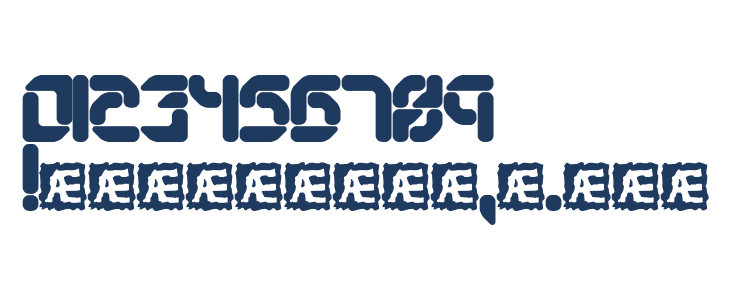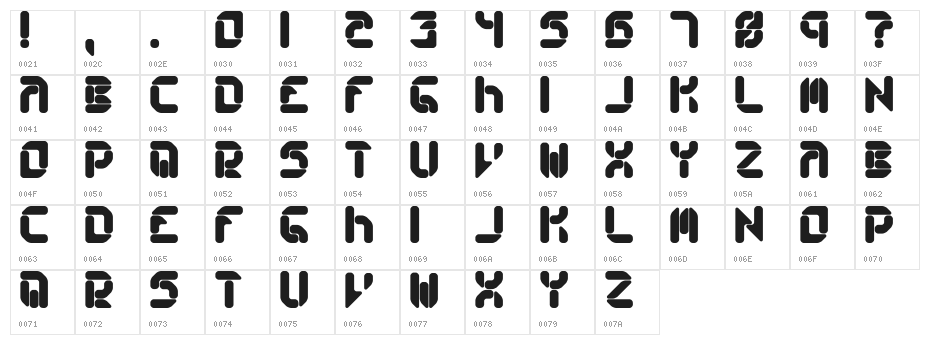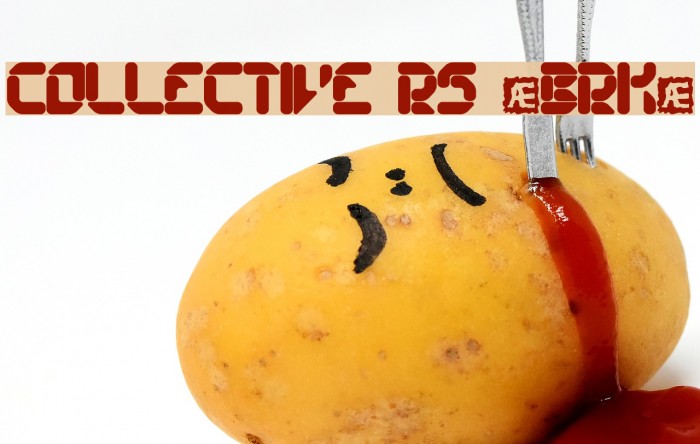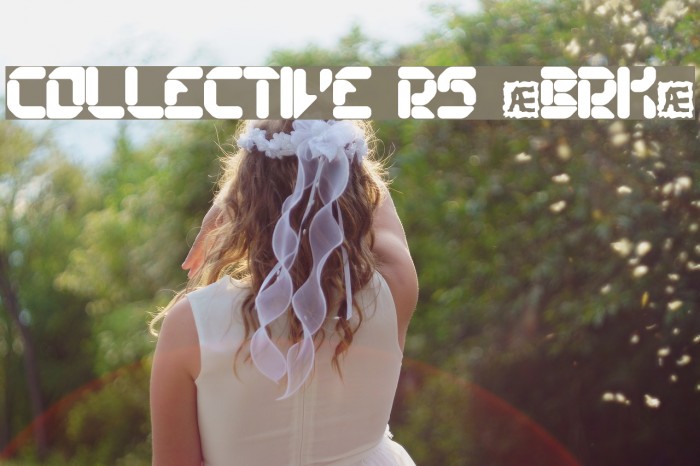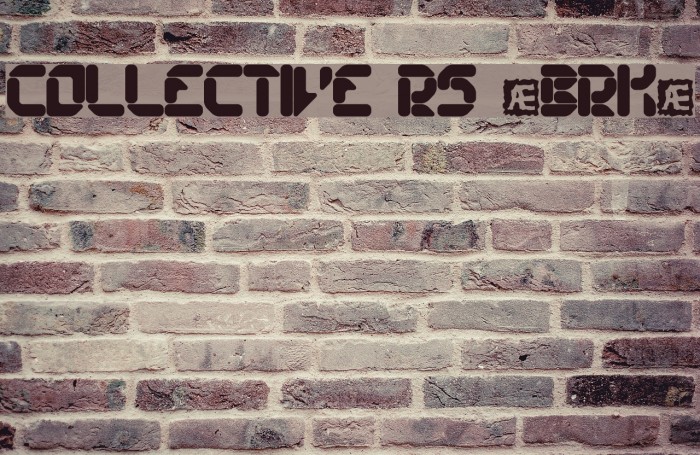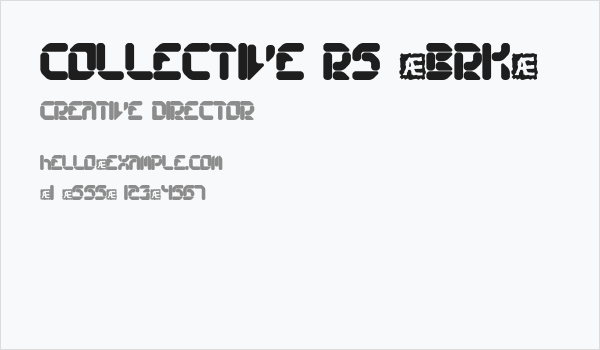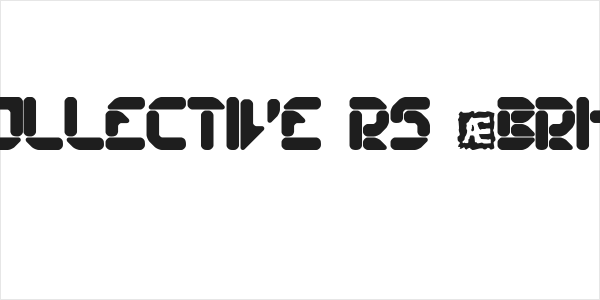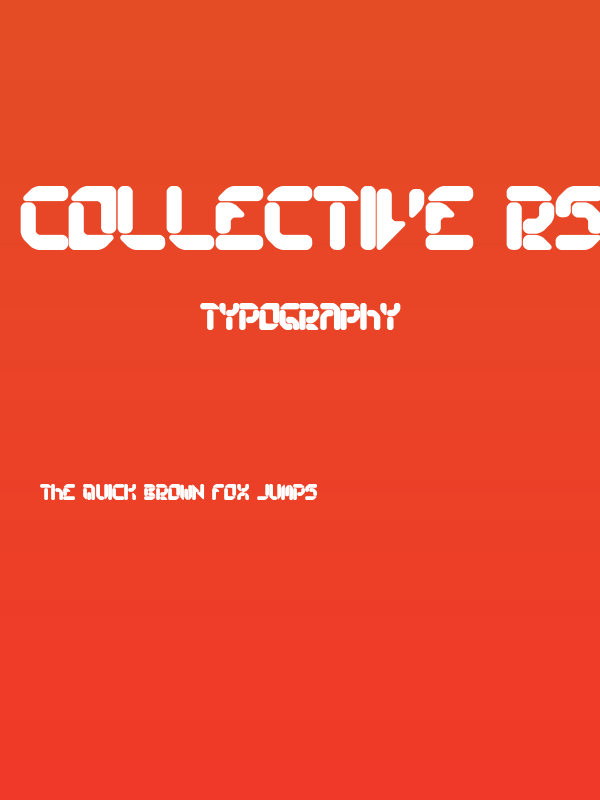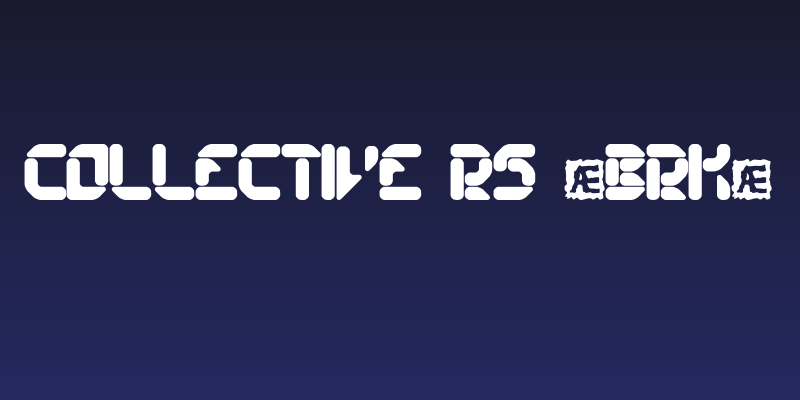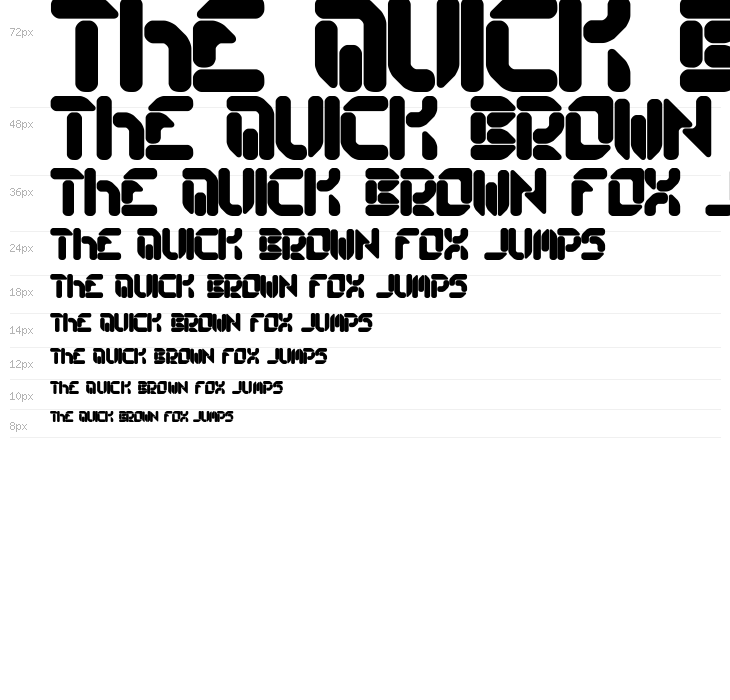
Collective RS [BRK] Font
Collective RS [BRK] Description
This font features a bold, geometric design with a futuristic and industrial feel. The characters are constructed with thick, rounded strokes and angular cuts, creating a sense of movement and modernity. The uppercase and lowercase letters maintain a consistent style, with a unique approach to letterforms that emphasizes symmetry and balance. The numbers and special characters follow the same design principles, ensuring a cohesive look across all elements. This font's distinct style makes it suitable for attention-grabbing designs.
| Overall Style | Futuristic, Industrial |
| Proposed Projects | Ideal for sci-fi themed posters, tech branding, video game titles, and modern digital interfaces. |